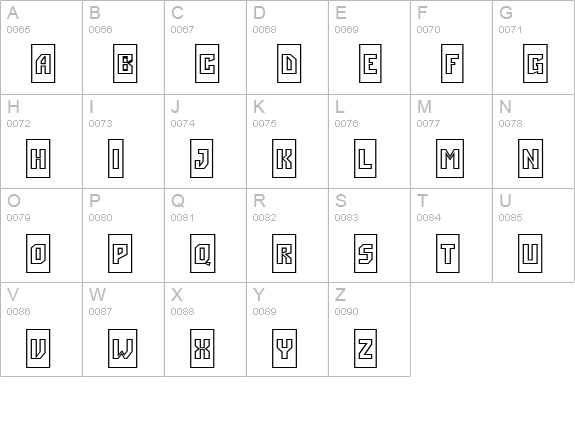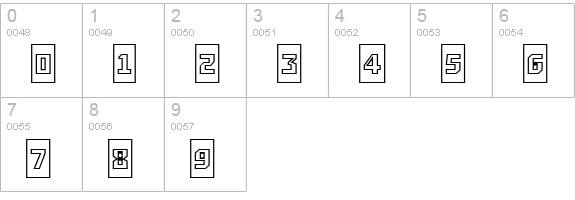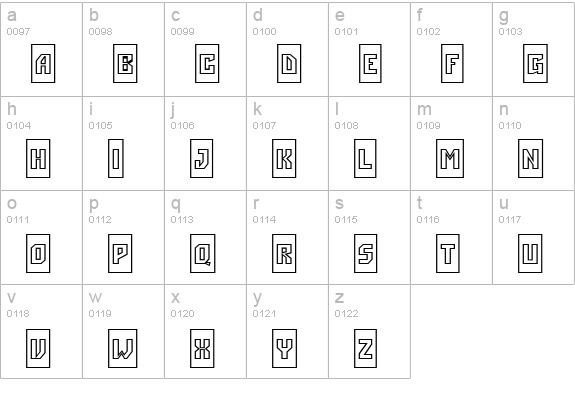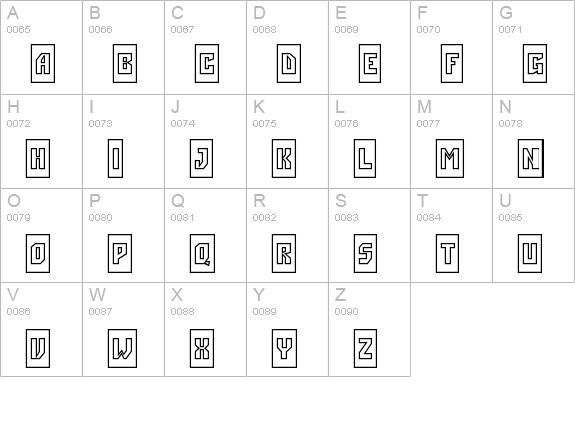
a_SimplerCmOtl Bold Font Details
a_SimplerCmOtl Bold is a strong, high-contrast variant in the a_SimplerCmOtl typeface family \xE2\x80\x94 well suited to headlines, attention-grabbing titles, and strong calls-to-action.
The SimplerCmOtl Bold font is a versatile and modern typeface that exudes a sense of strength and sophistication. Its bold and eye-catching design makes it perfect for headlines, titles, and branding projects. With its clean lines and contemporary look, this font is sure to make a statement in any design project. Best of all, the SimplerCmOtl Bold font is completely free to download at FontsMarket.com. Whether you're a designer looking to add a fresh font to your collection or a content creator in need of a striking typeface, this font is a fantastic choice. Don't miss out on the opportunity to enhance your designs with this stylish and impactful font - download it today and start creating beautiful and engaging visuals!